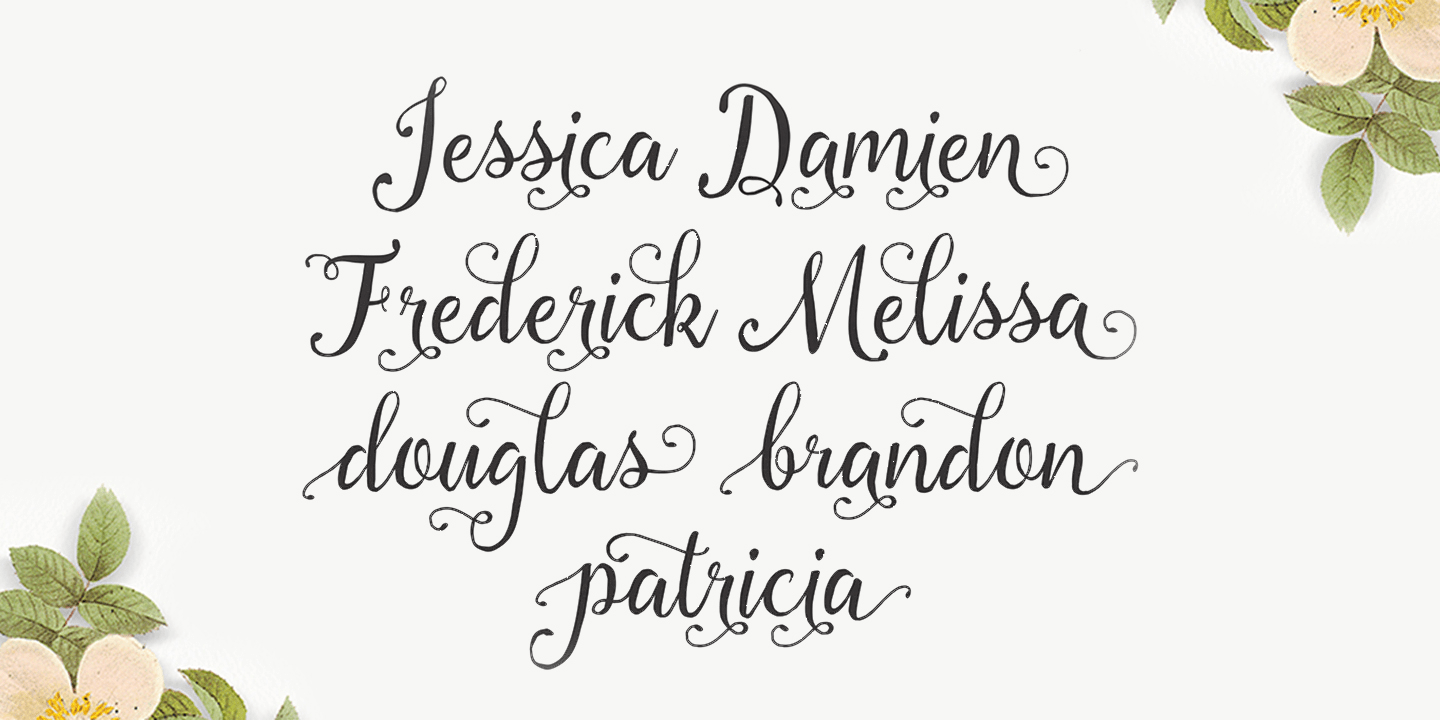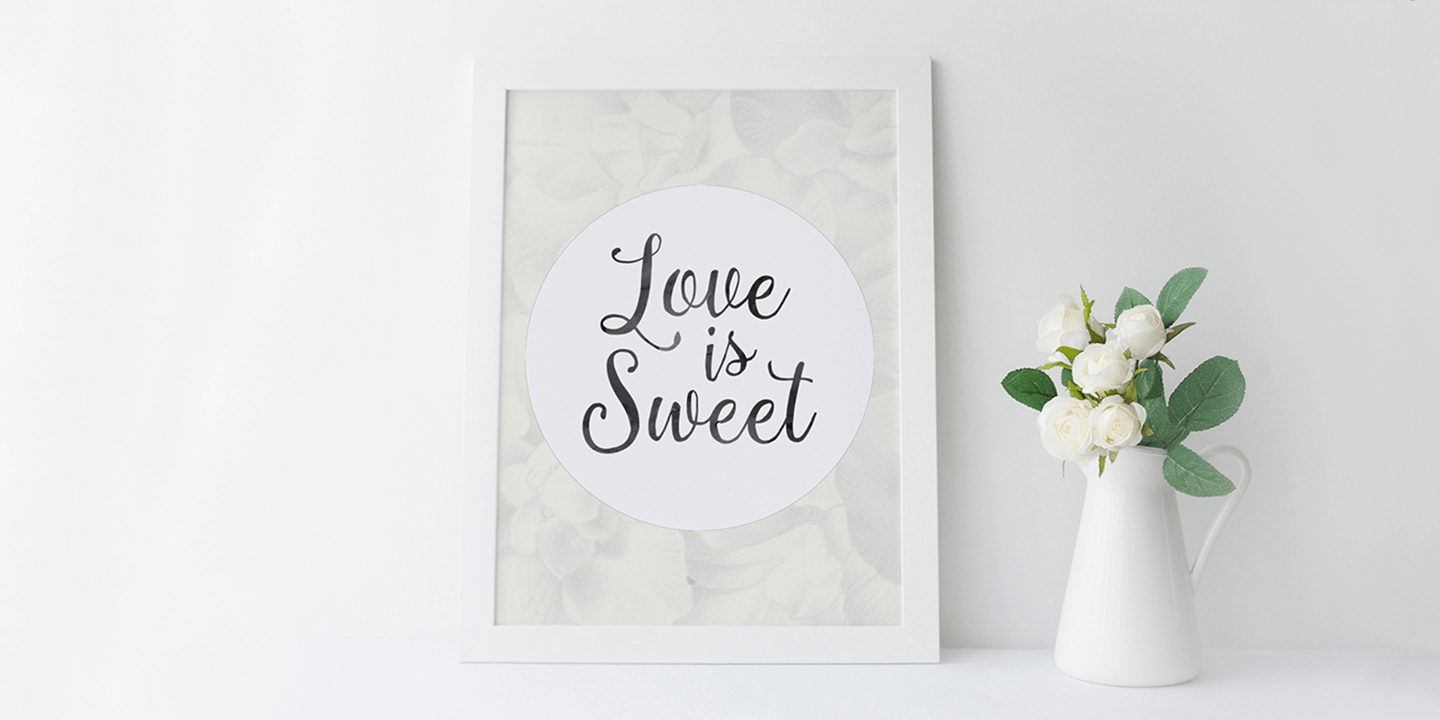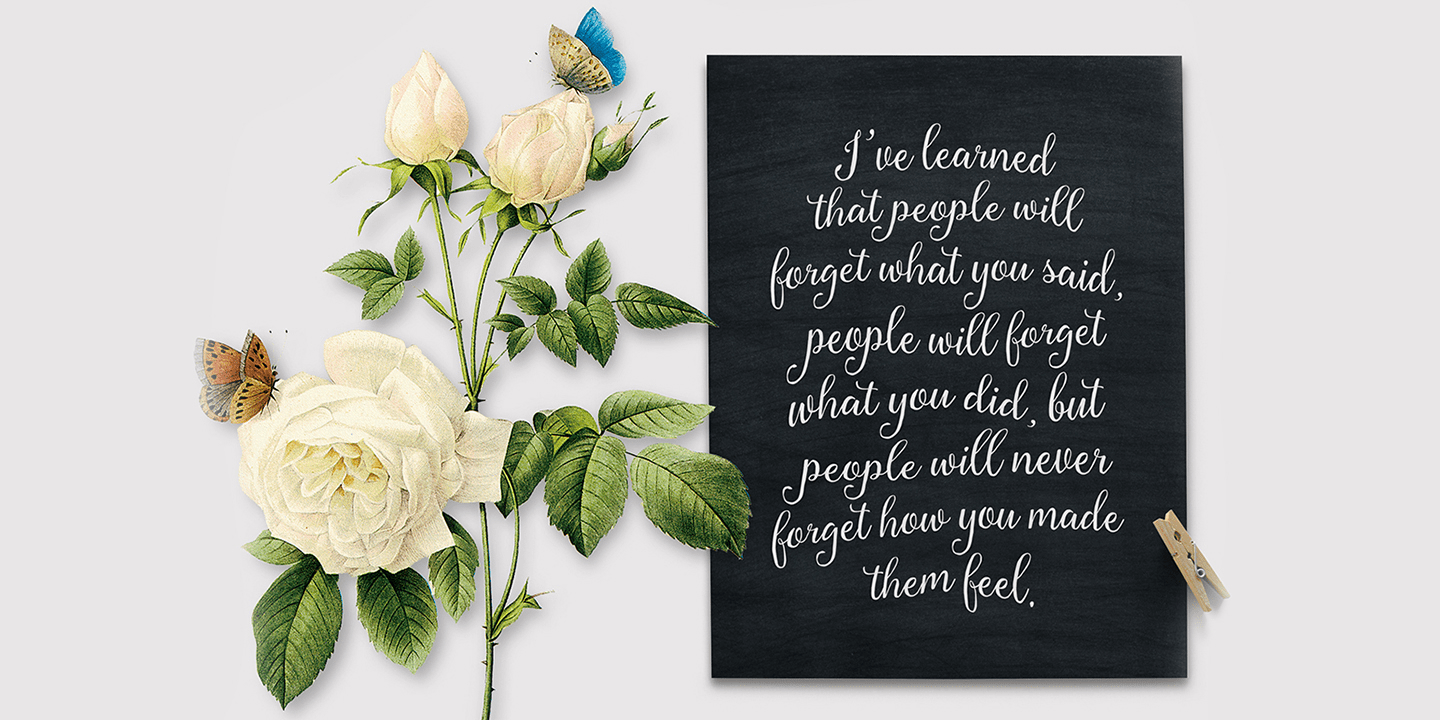
About Florabella
Florabella is a new handmade script font with an irregular baseline. Rough edges create a trendy look and harmony. Florabella looks lovely on wedding invitations, thank you cards, quotes, greeting cards, logos, business cards and more. It is perfect…